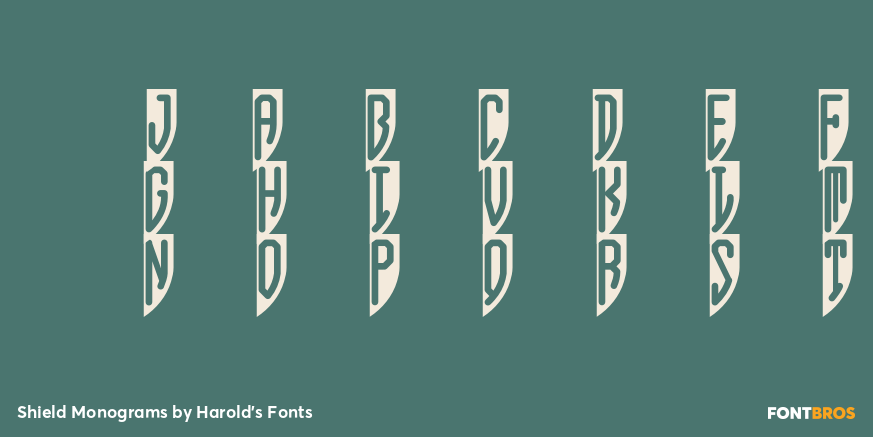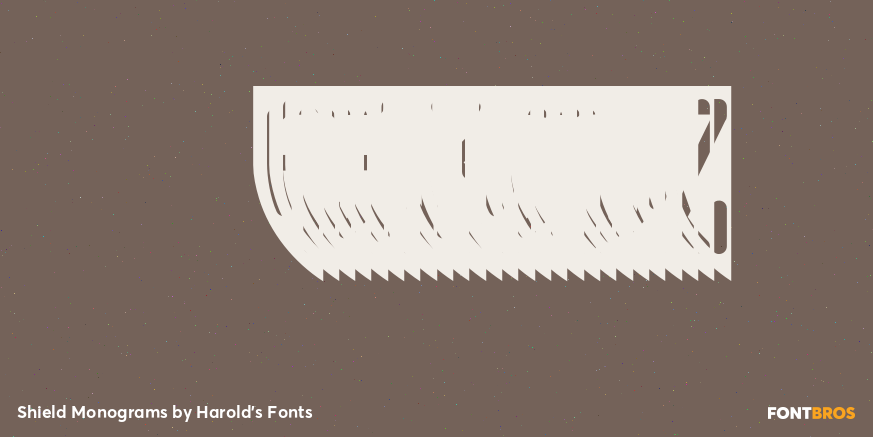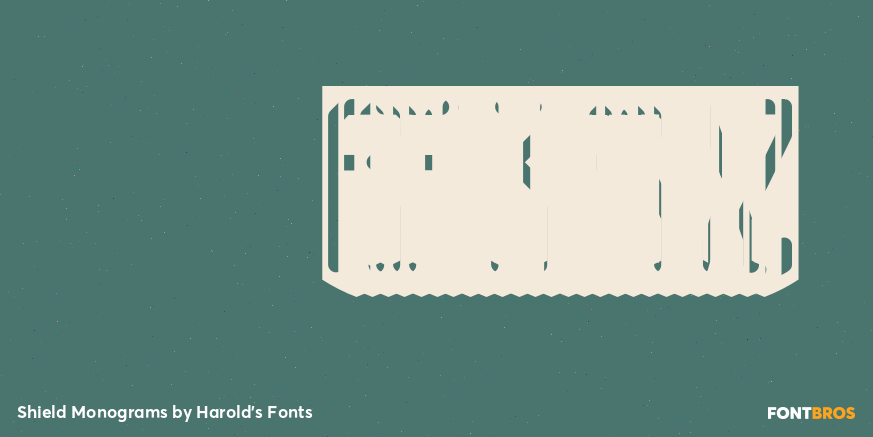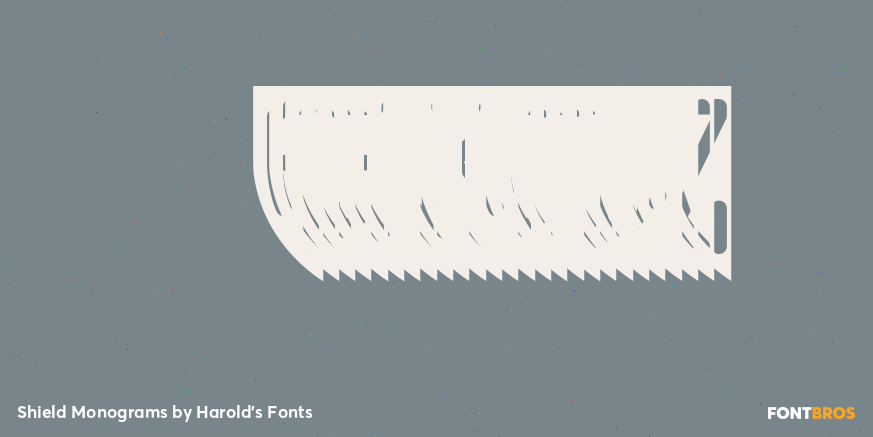
Shield Monograms
Font Family by Harold's Fonts
The SHIELD MONOGRAMS set lets you make 1-, 2-, and 3-letter monograms within a shield shape. You can choose a black or white background, a decorative frame, and then type the letters you choose.